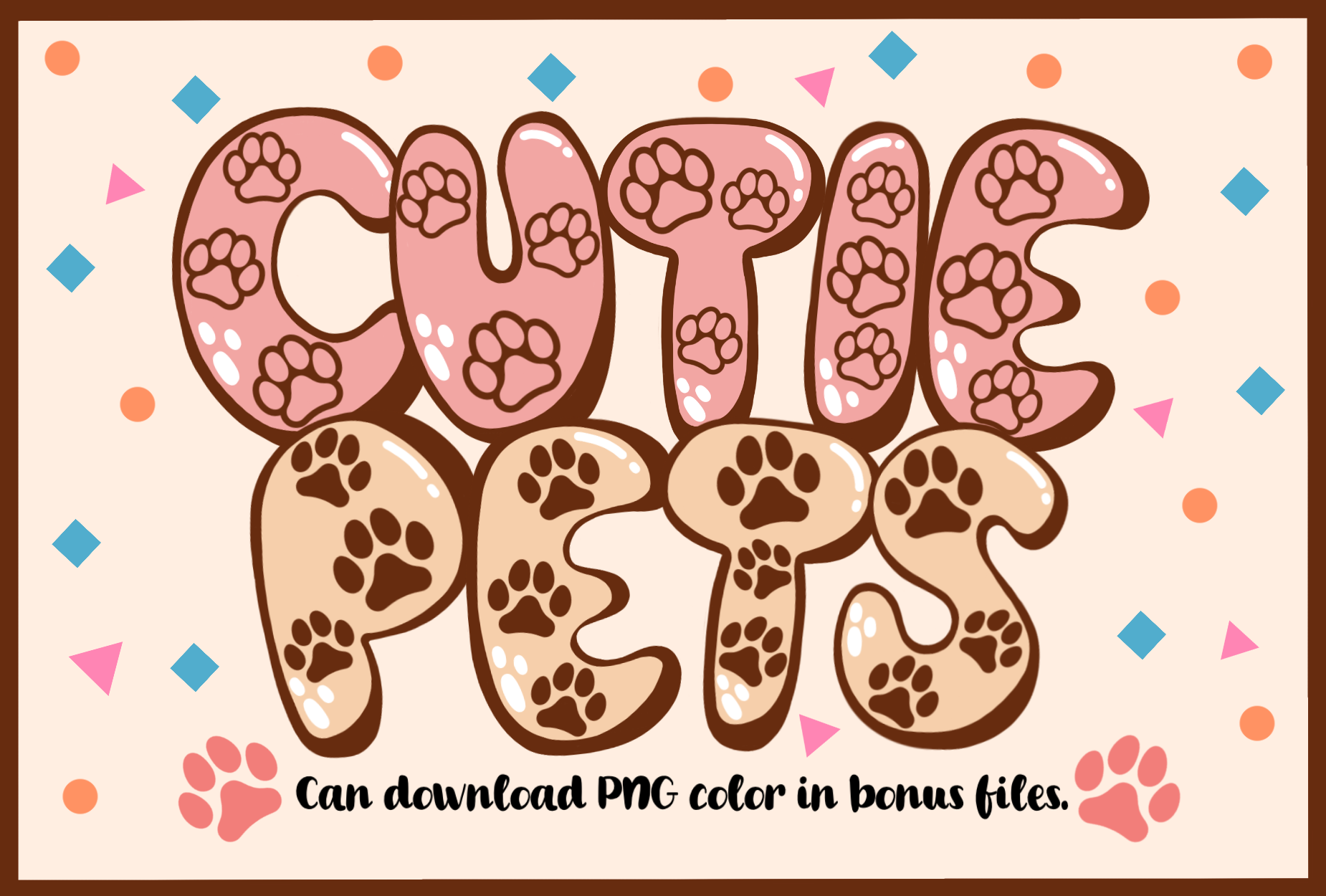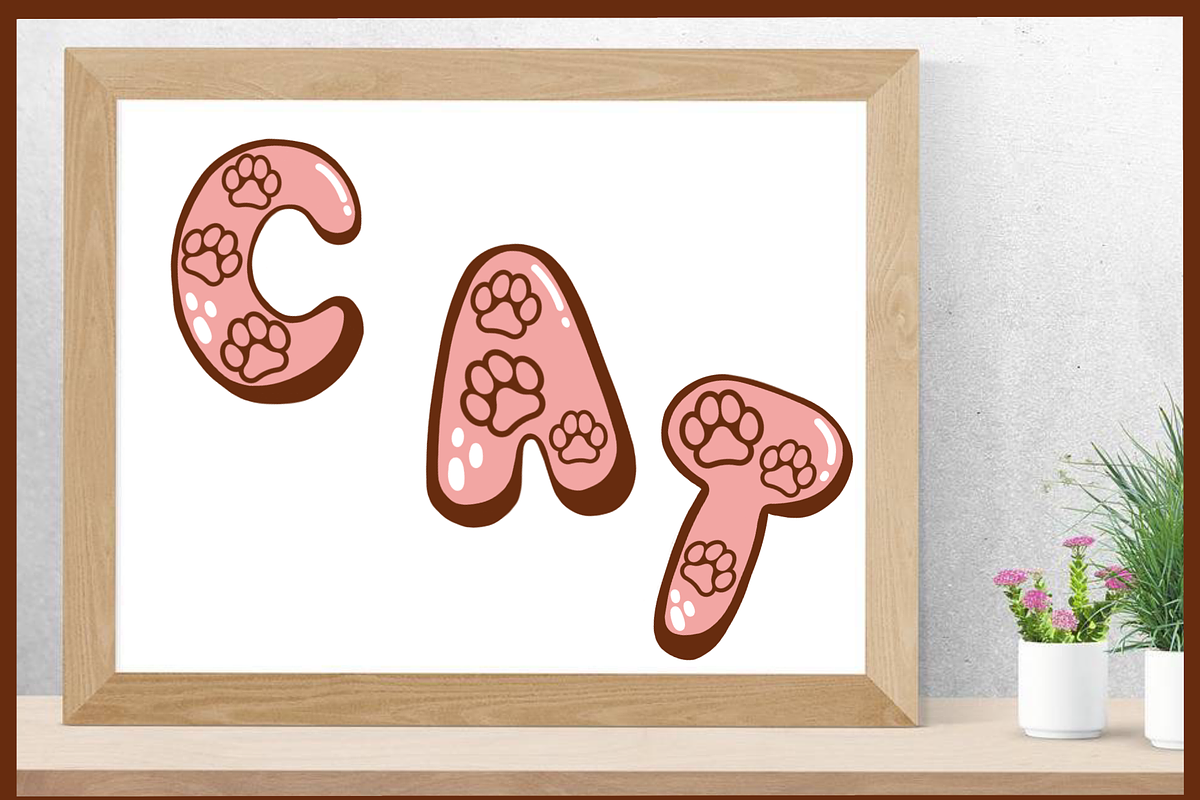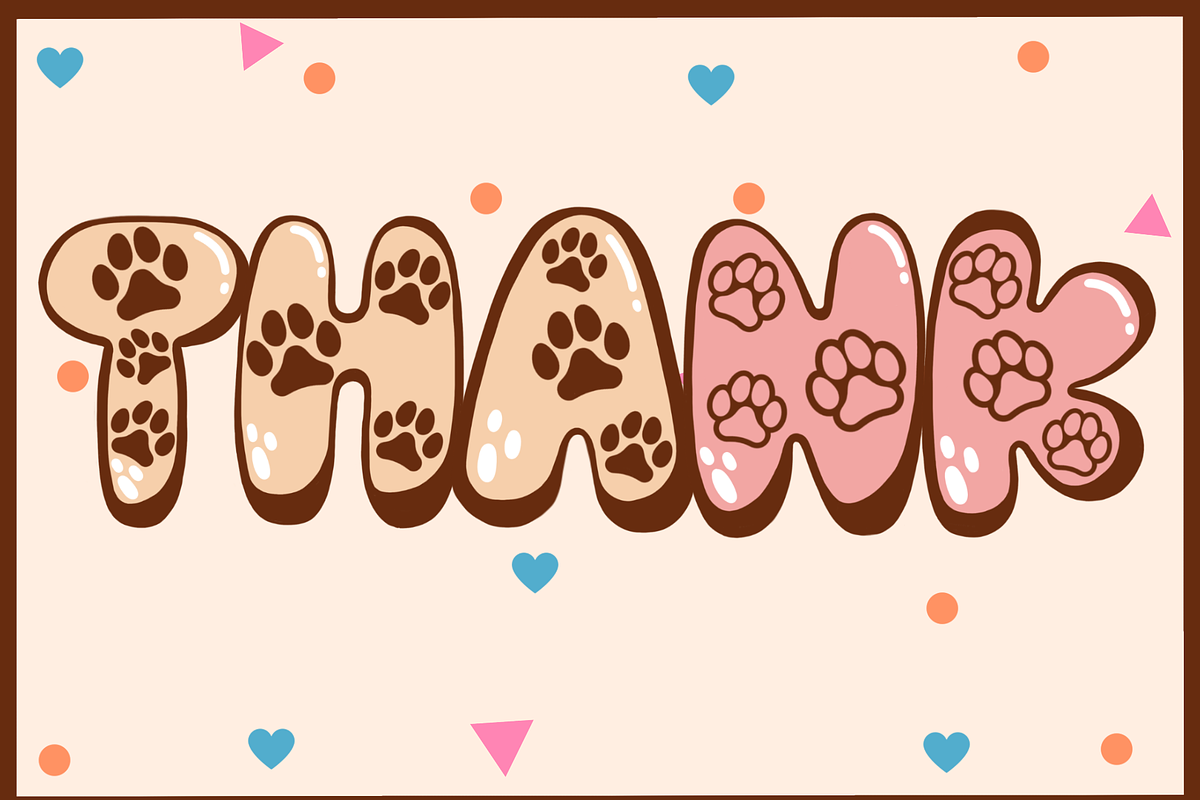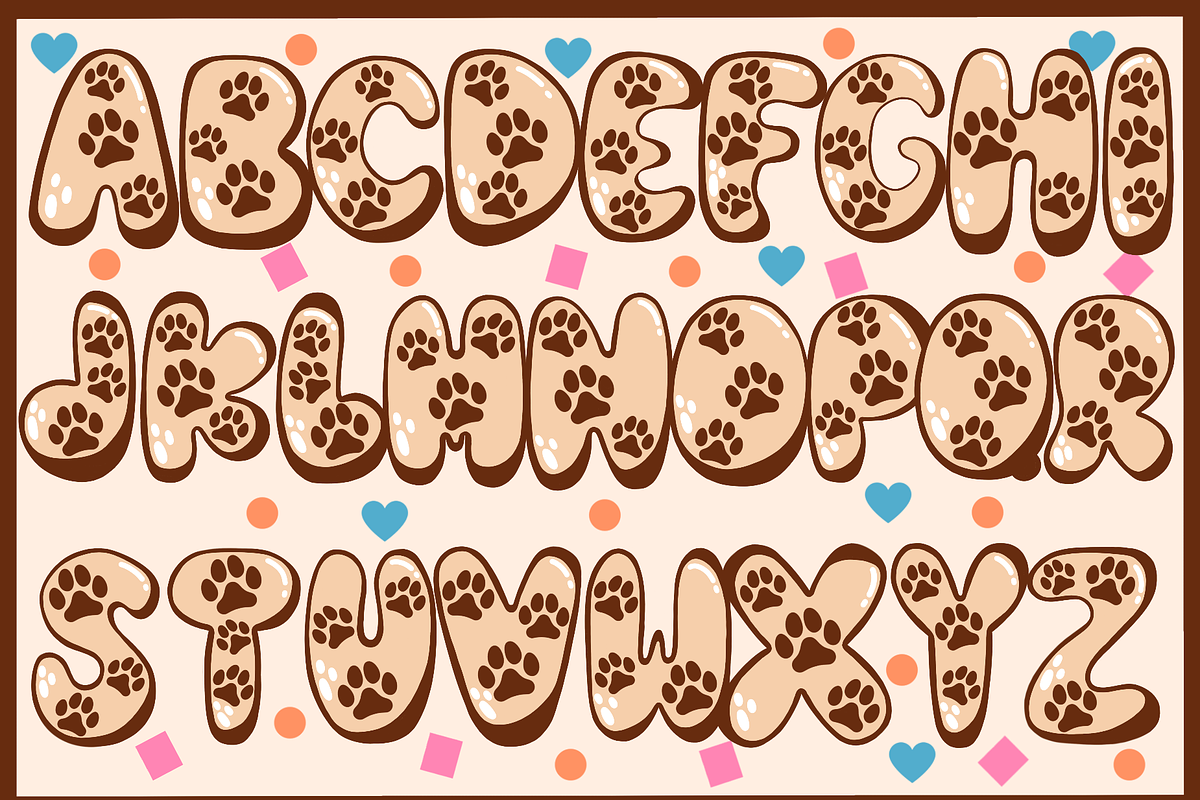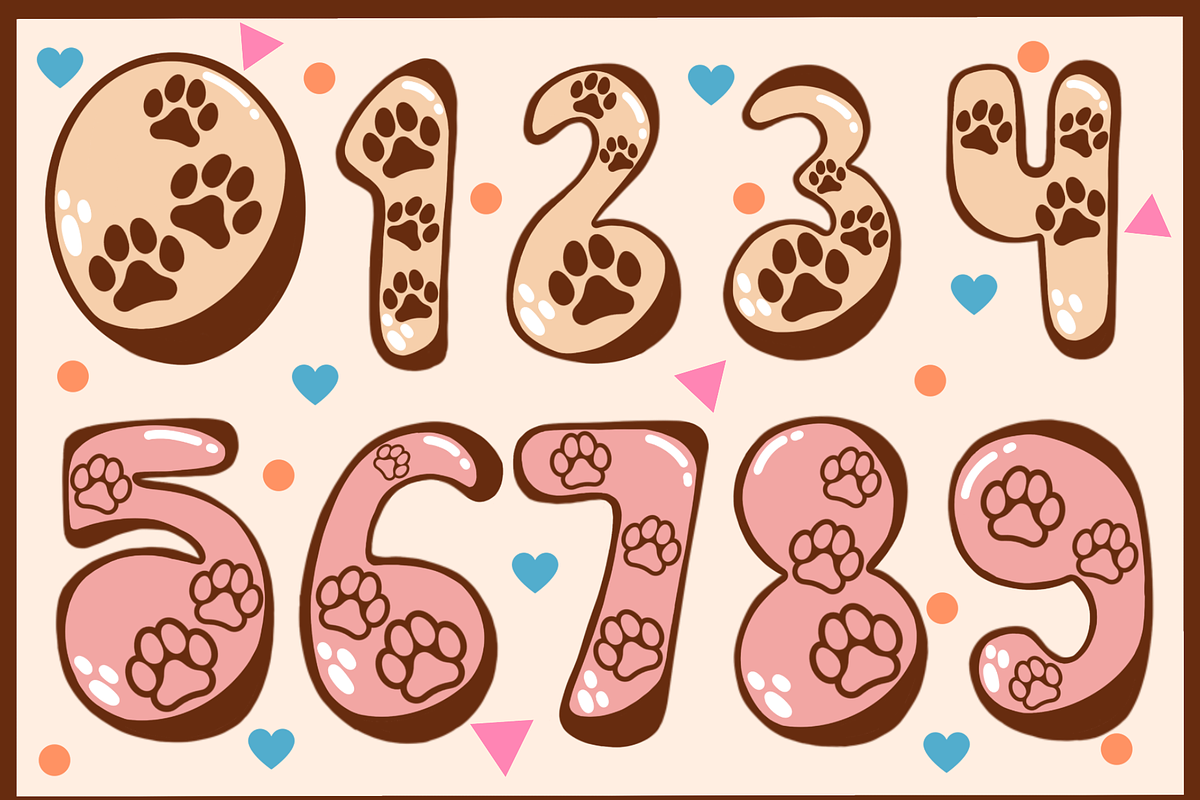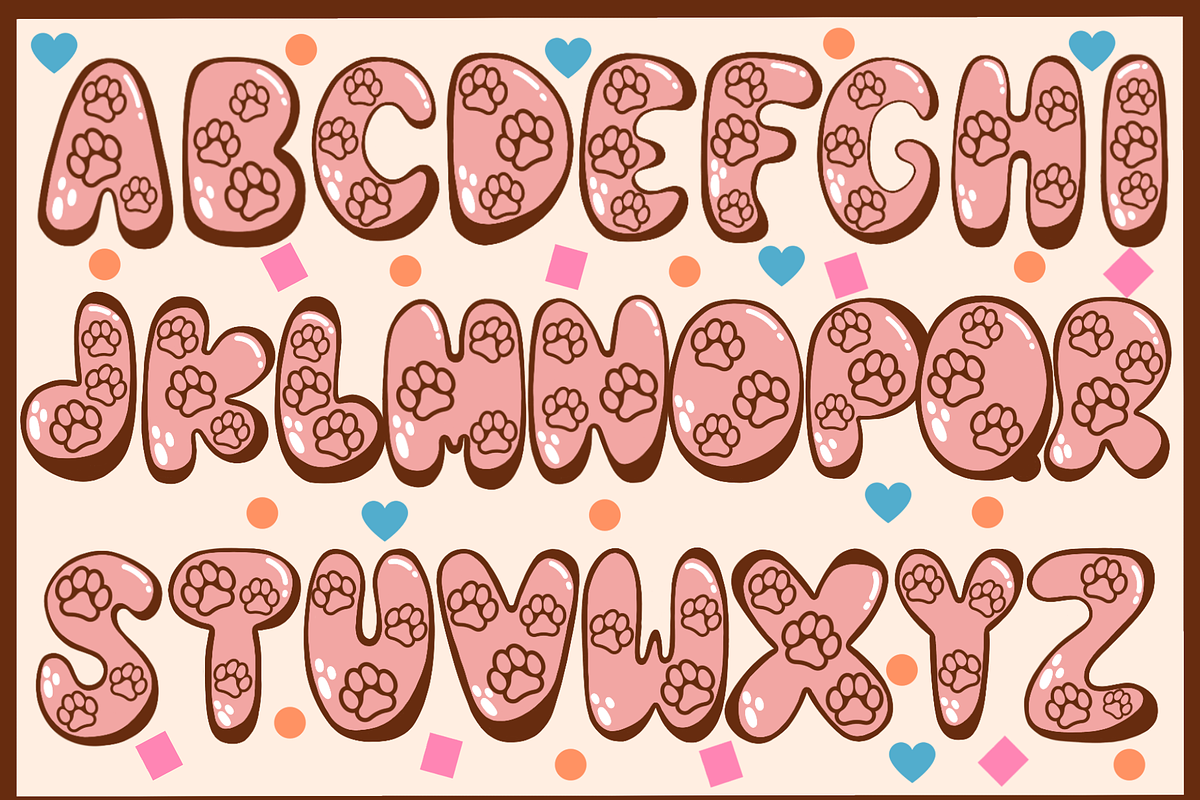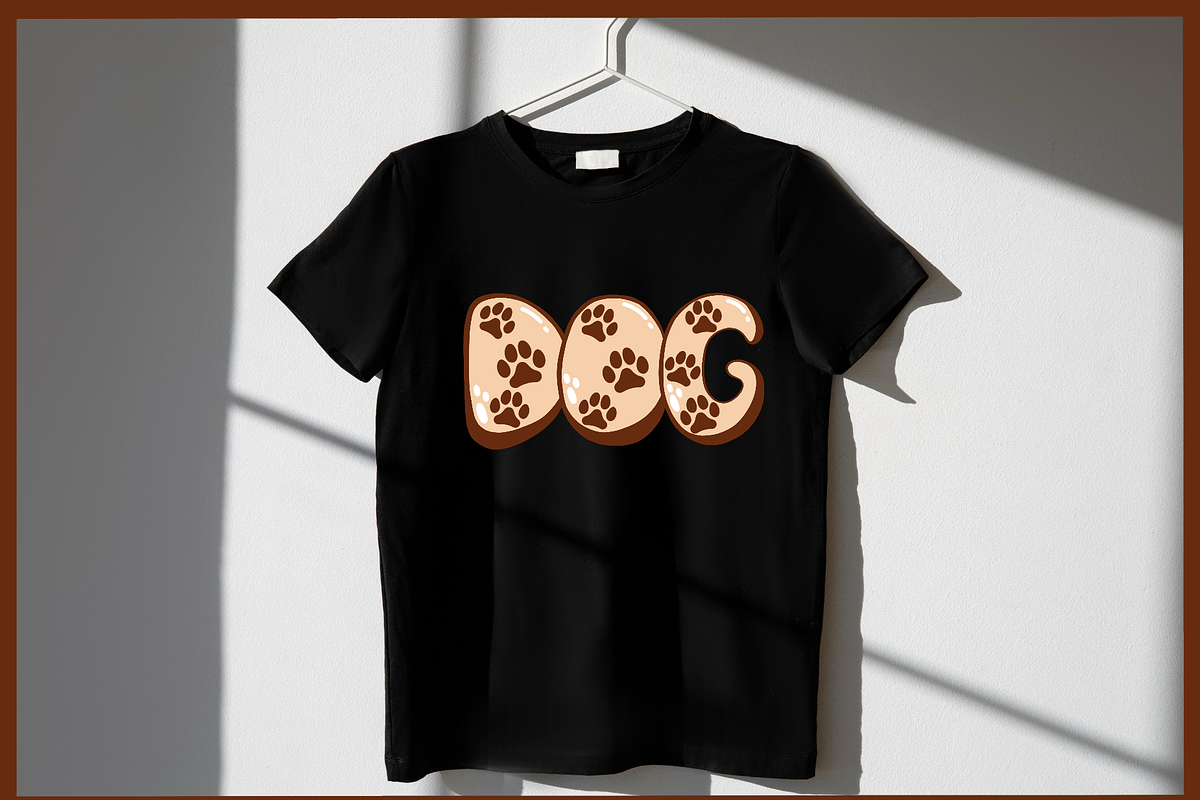
Cutie Pets-PNG fonts
Cutie Pets Font Cutie Pets is a cute and fun decorative font that features a playful paw pattern. It also comes with colorful PNG images to add extra charm to your designs. Perfect for pet-themed projects and making your work look adorable!